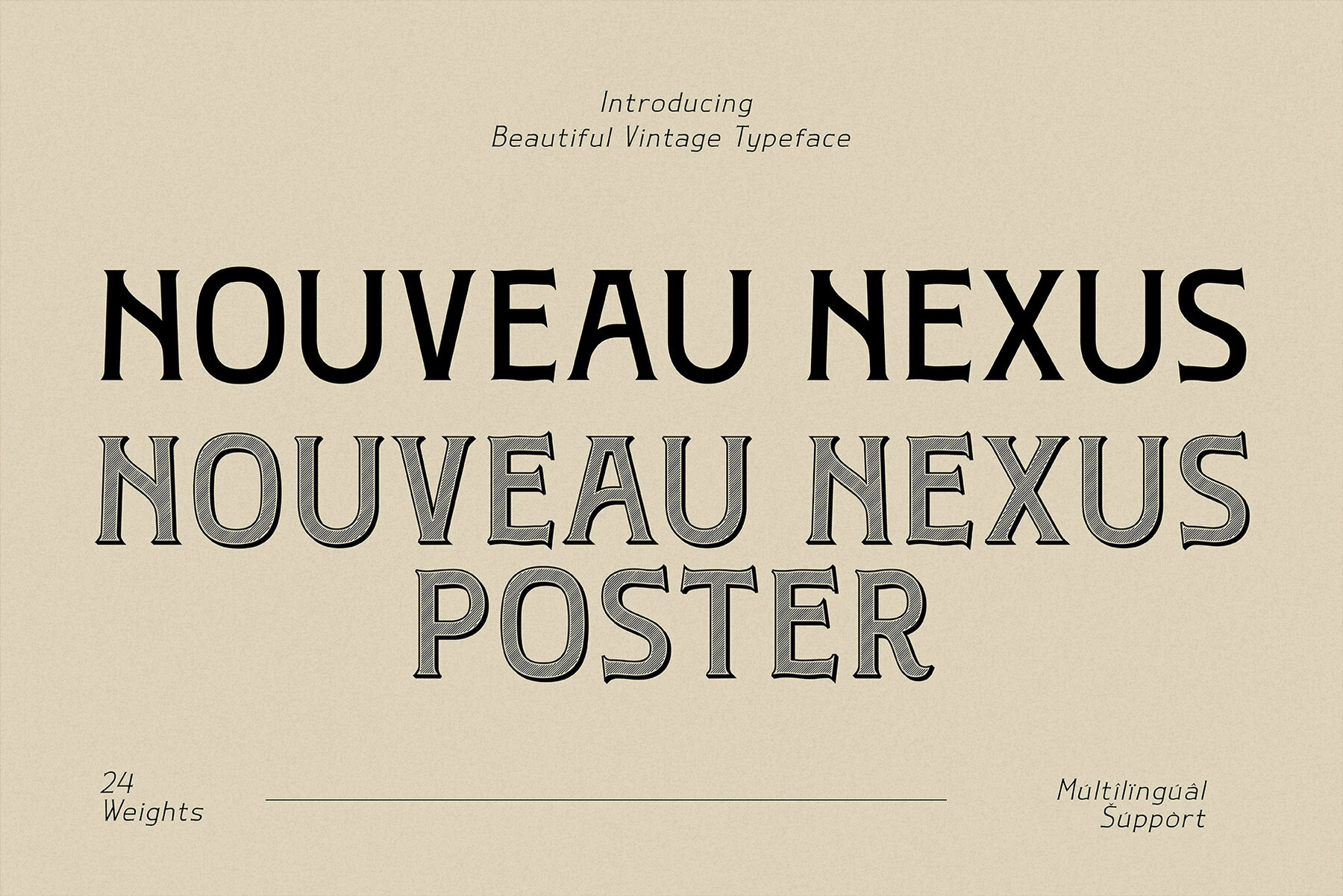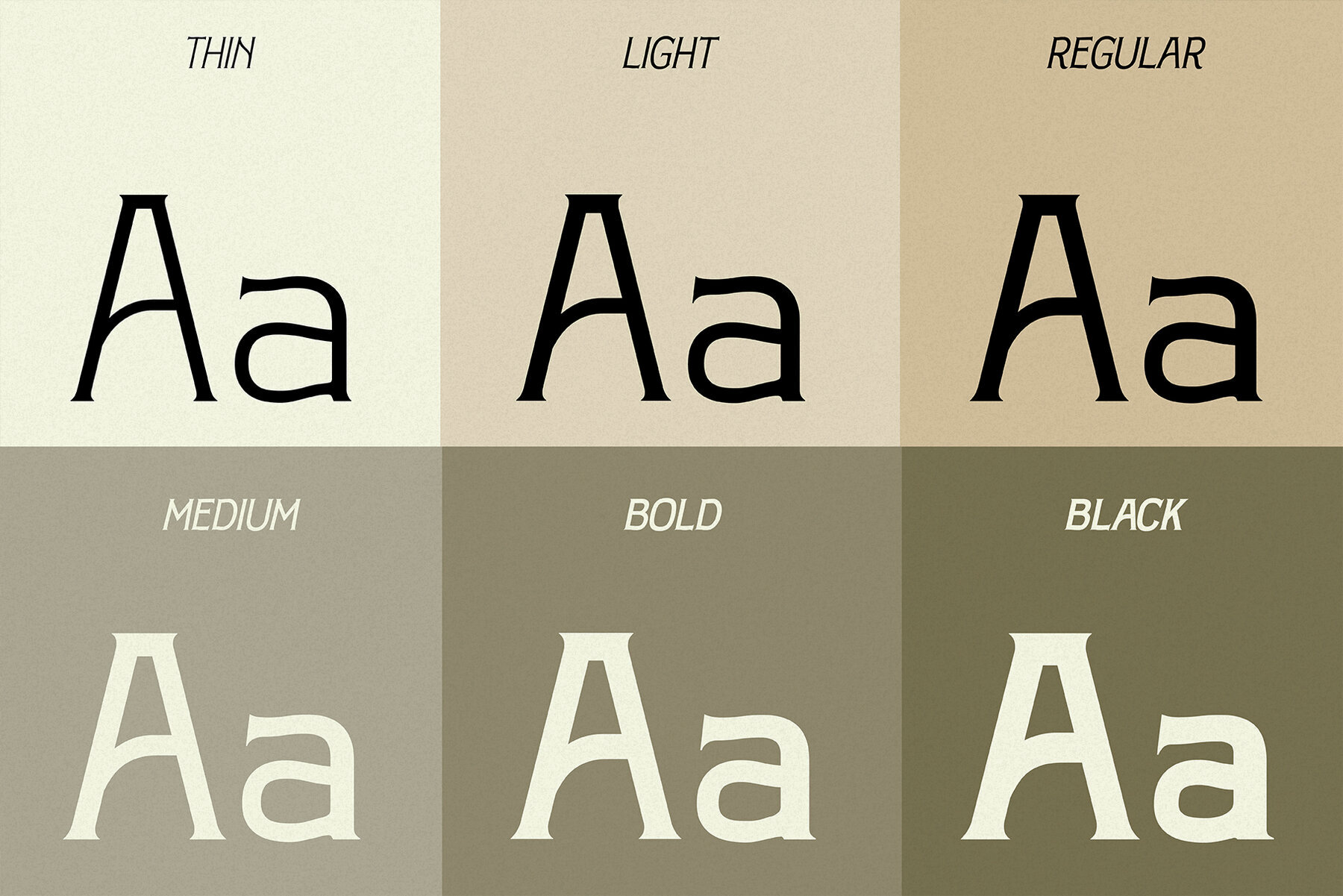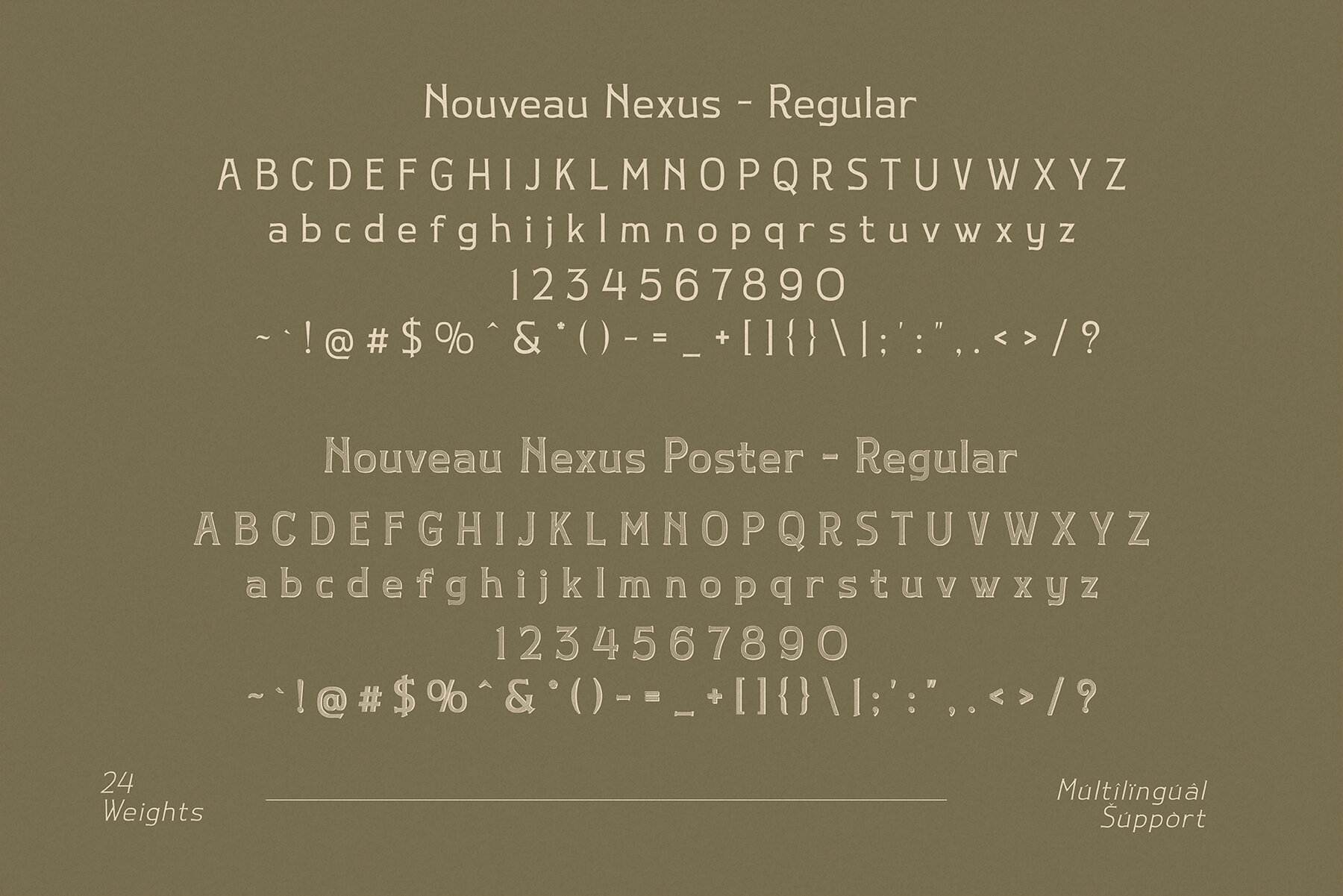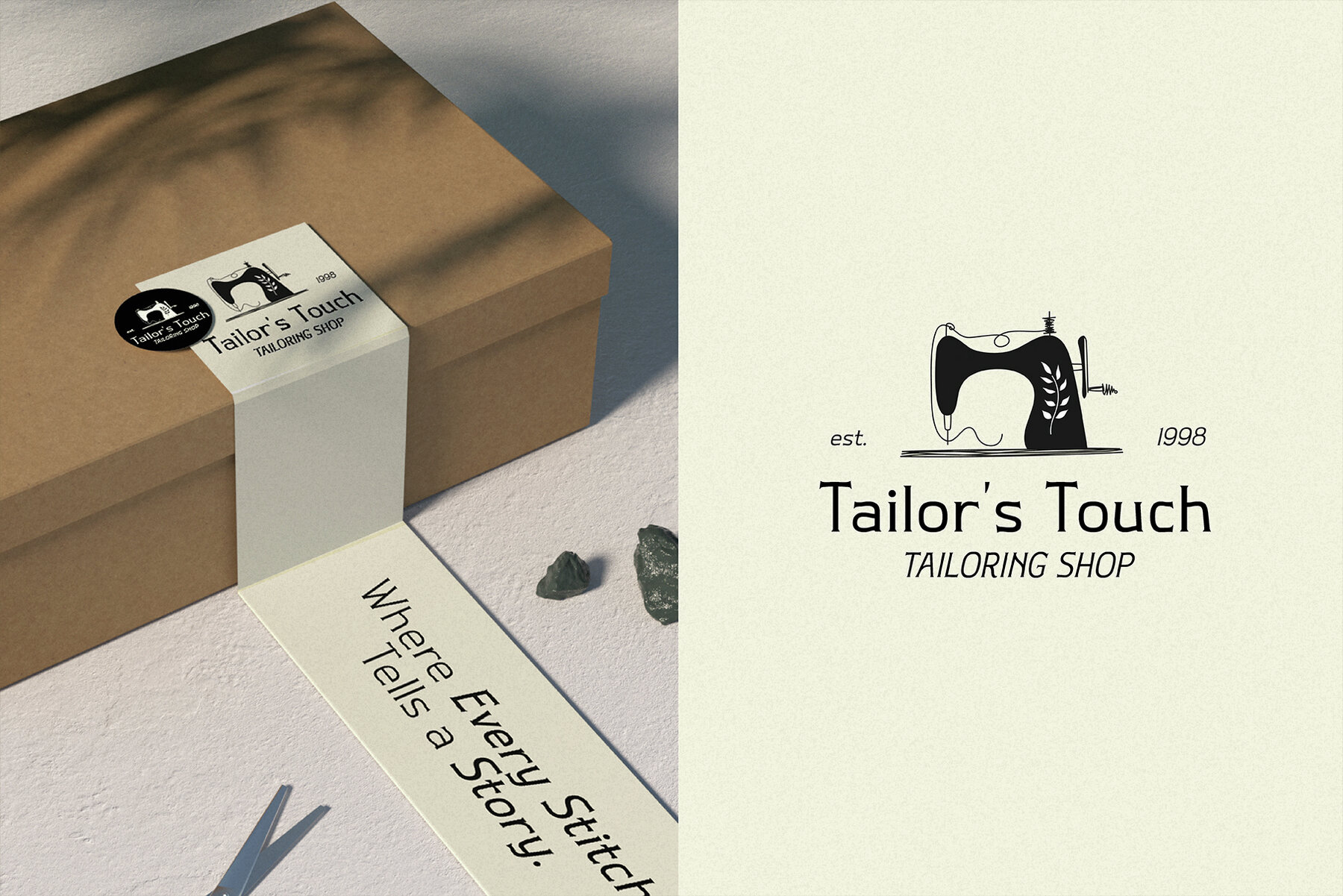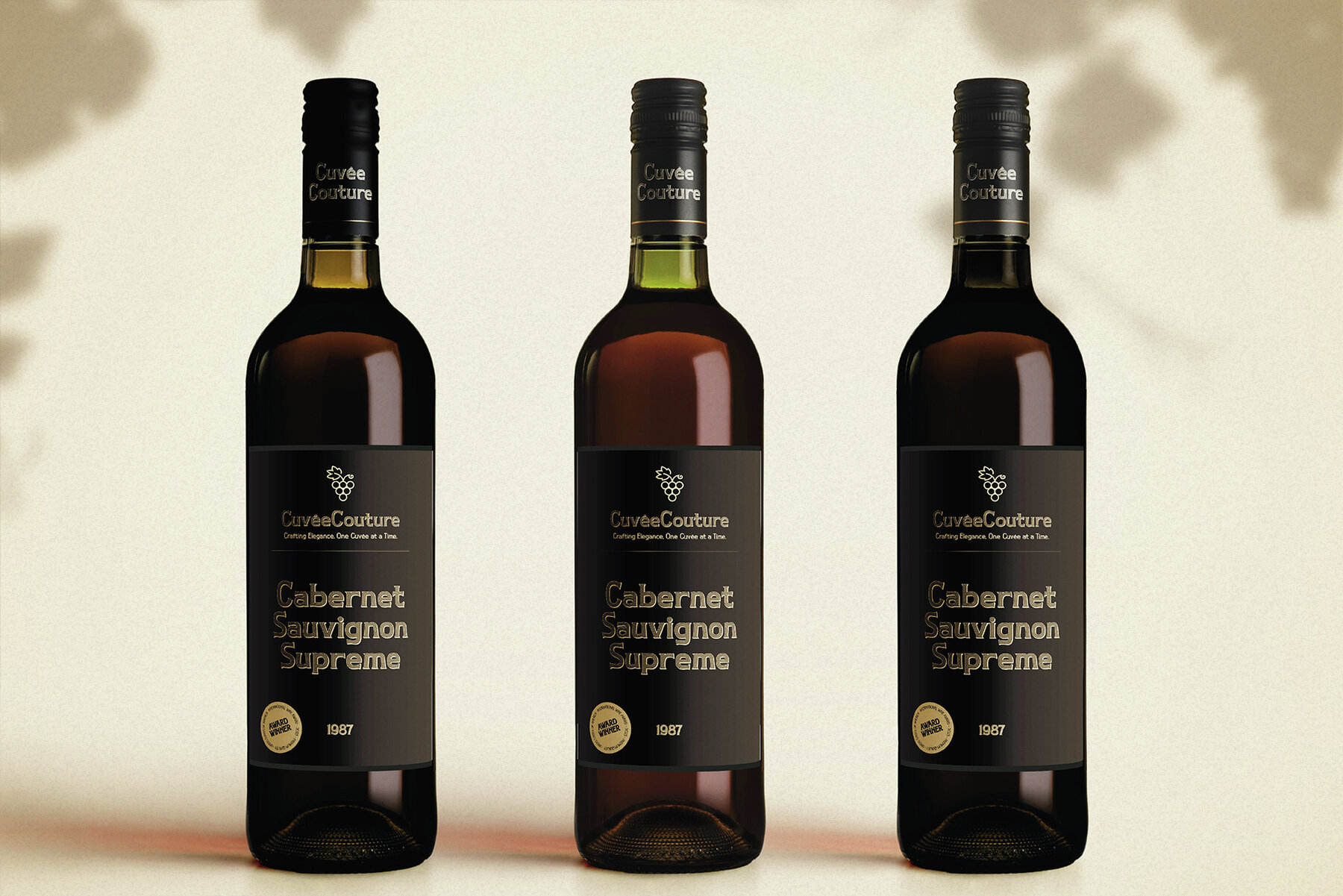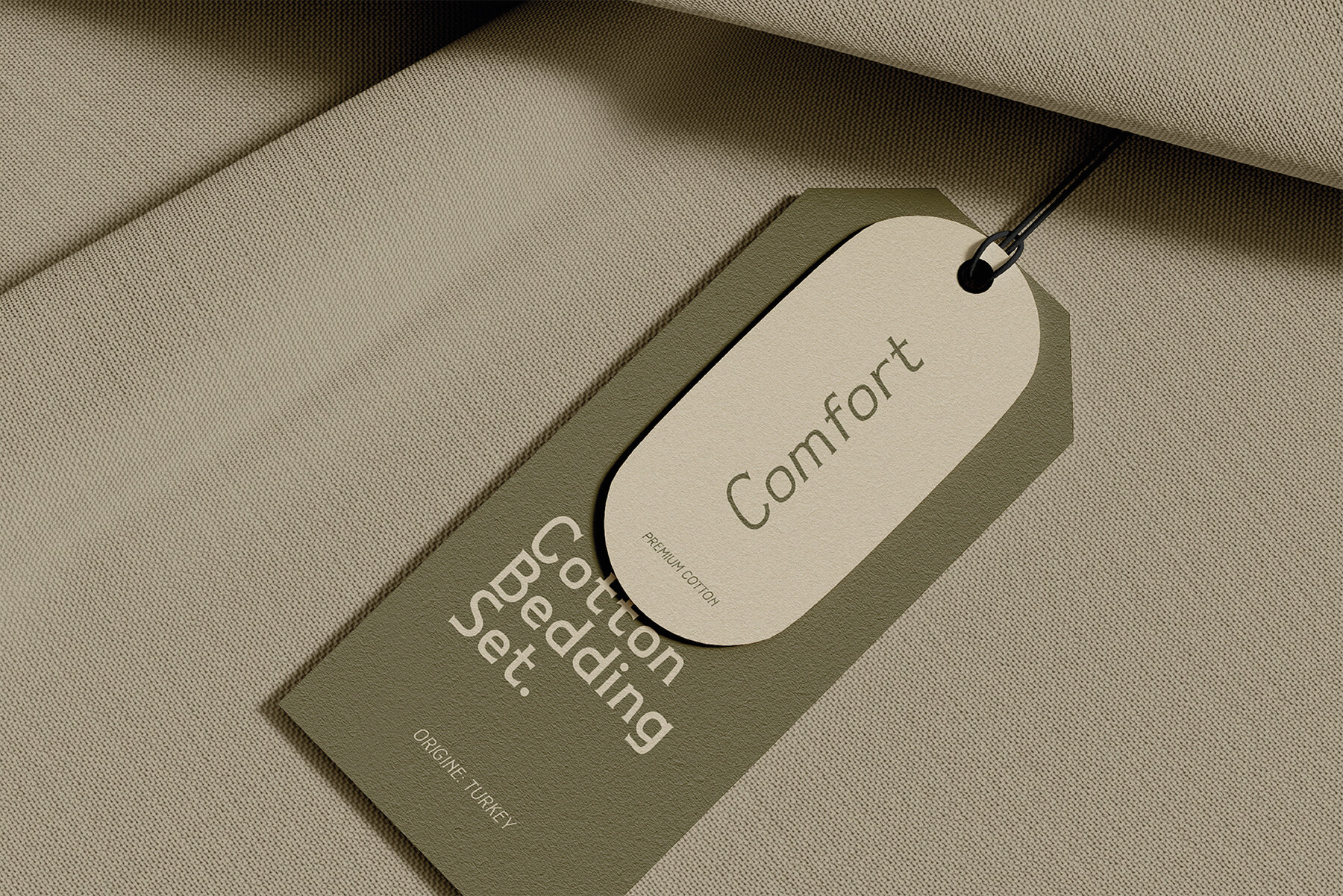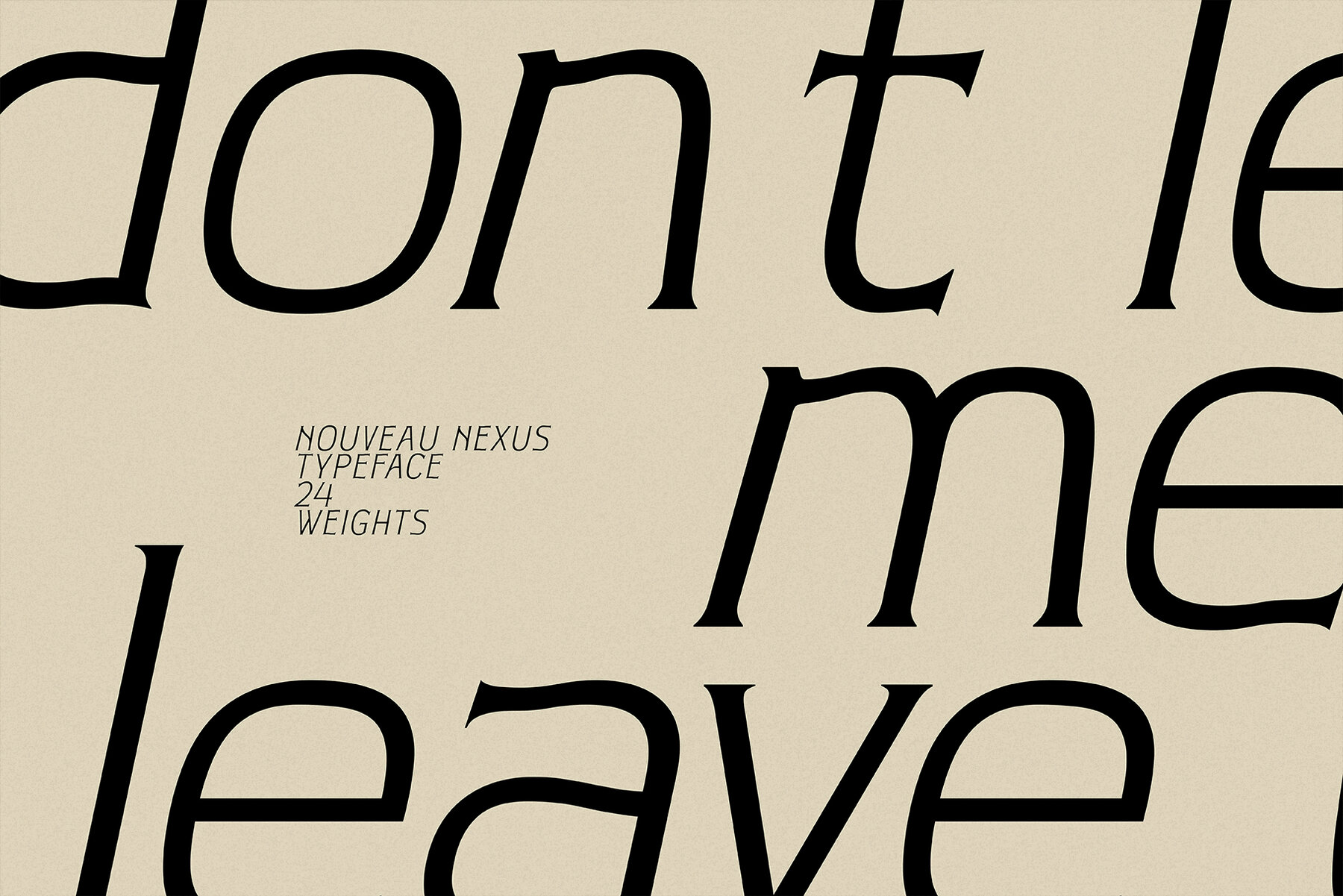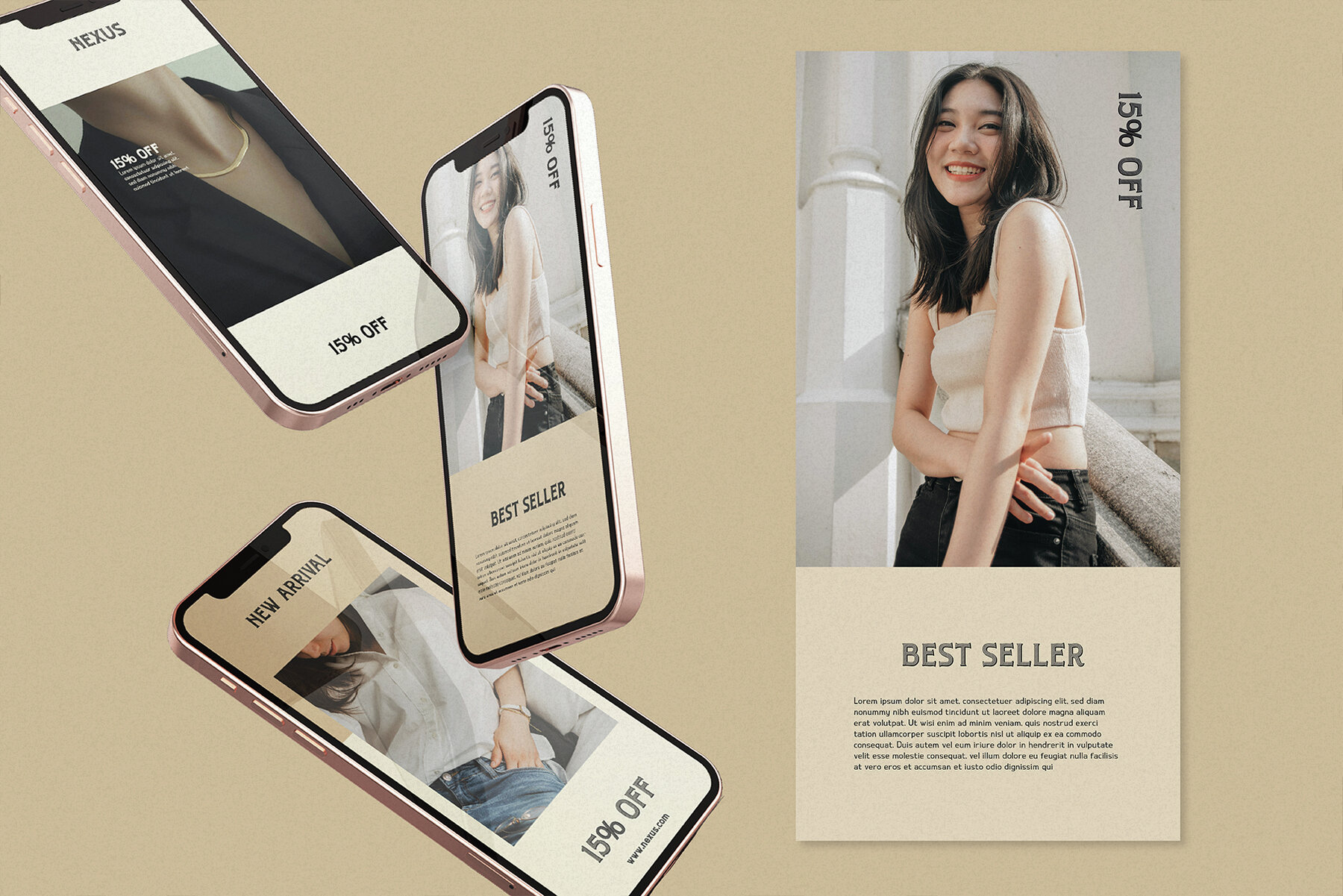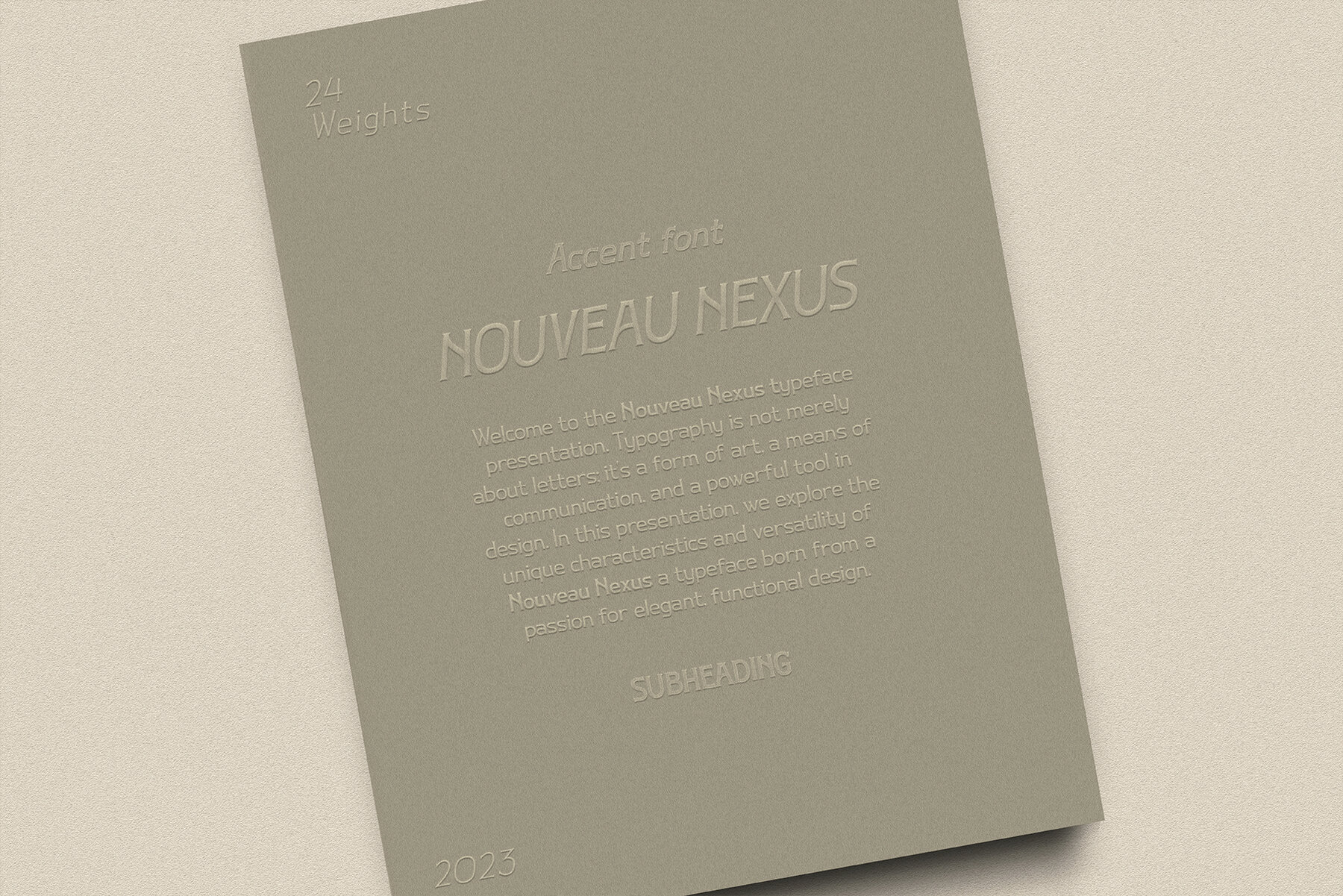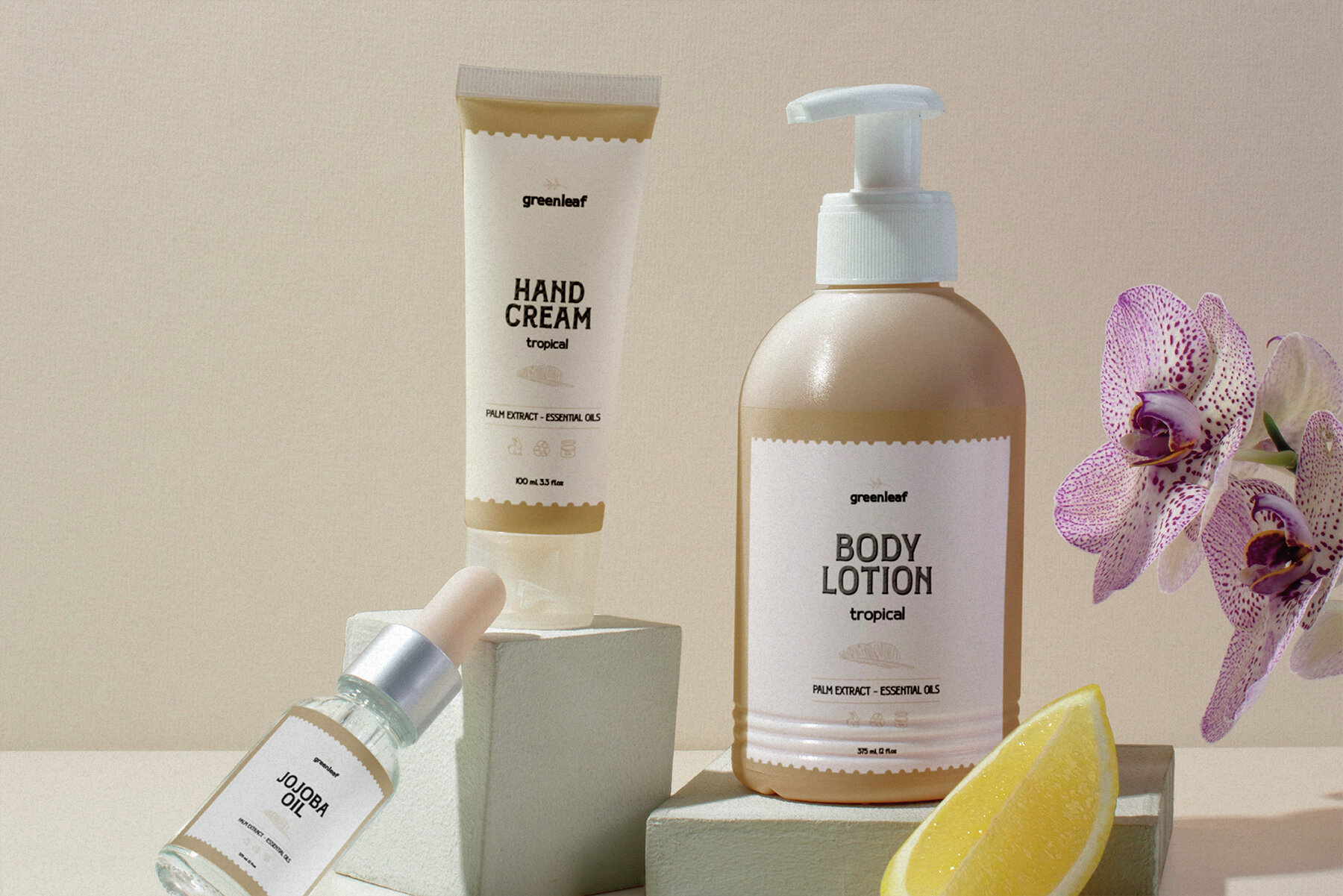
Nouveau Nexus Font
Introducing “Nouveau Nexus,” a captivating Vintage Display typeface that transports you straight back to the early 1900s. With a unique blend of Art Nouveau intricacies and timeless elegance, this font weaves a tapestry of nostalgia and sophistication. Nouveau Nexus exudes the spirit of a bygone era, with its graceful curves and ornate details, meticulously crafted to evoke the charm of vintage posters and signage. The regular version is perfect for adding a touch of class to your designs, while the poster version commands attention with its bold, larger-than-life characters. Whether you’re designing for a classic brand revival or infusing your modern creations with a dash of old-world charm, Nouveau Nexus is your passport to a journey through time, offering endless possibilities for creative expression. Let your typography become a gateway to the past with this exquisite typeface.